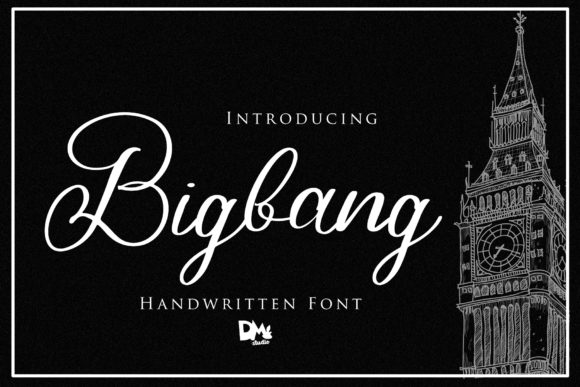
The Bigbang Font: A Timeless Classic for Your Design Projects
I’ll never forget the time I was working on a vintage-themed branding project for a local craft brewery. I had spent hours scouring the internet for the perfect font, but nothing seemed quite right. That was until I stumbled upon the Bigbang font. Its classic script style with a vintage feel instantly transported me back to the Prohibition era, and I knew I had found the perfect fit. In this article, we’ll dive into the world of Bigbang, exploring its features, how to use it, and some similar fonts you might love.
A Personal Review of Bigbang
- ✨ The vintage feel: Bigbang has a unique, authentic quality that instantly adds depth to any design project.
- ✅ Highly legible: Despite its script style, Bigbang is surprisingly easy to read, making it perfect for headlines, titles, and even body text.
- 💫 OpenType features: Bigbang comes with a range of OpenType features, including glyphs and stylistic alternates, giving you plenty of creative freedom.
- 🤔 Limited character set: While Bigbang has a wide range of characters, it may not have every special character or glyph you need.
- ⚠️ Can be overused: With its distinctive vintage feel, Bigbang can be overused. Make sure to balance it with other fonts to avoid a clichéd look.
The Backstory of Bigbang
Bigbang was designed by a team of typographers who wanted to create a font that captured the essence of the Roaring Twenties. Inspired by vintage posters, advertisements, and signage, Bigbang is a classic script font with a unique, authentic feel. Whether you’re designing a logo, brochure, or website, Bigbang is the perfect choice.
| Font Name | Bigbang Font |
| What is Bigbang font? | Bigbang is a classic script font with a vintage feel, perfect for adding an authentic layer to any design project. |
| Is Bigbang suitable for body text? | While Bigbang is legible, it’s best suited for headlines, titles, and short paragraphs. For longer body text, consider using a more traditional serif or sans-serif font. |
| Does Bigbang support OpenType features? | Yes, Bigbang comes with a range of OpenType features, including glyphs and stylistic alternates. |